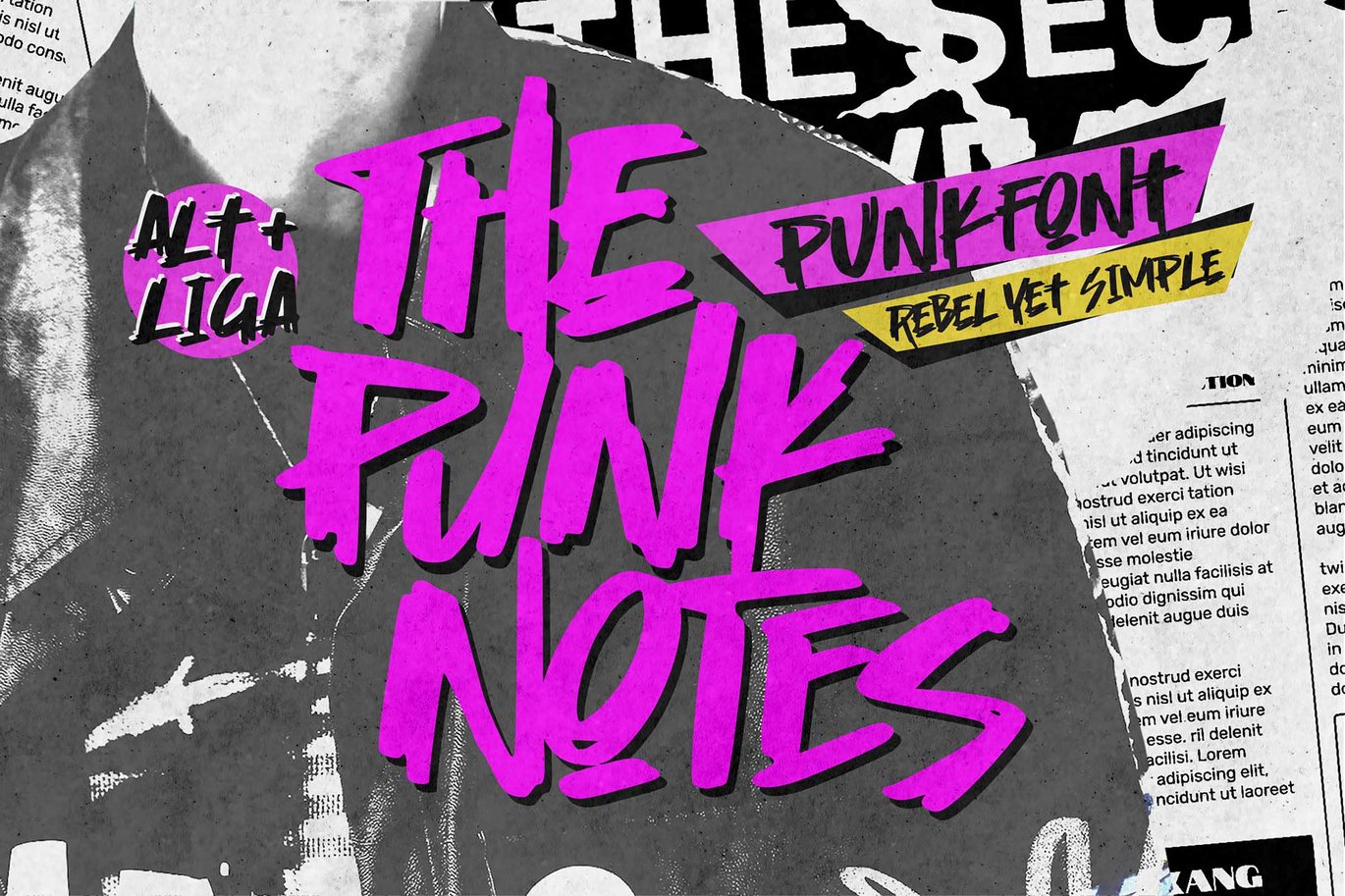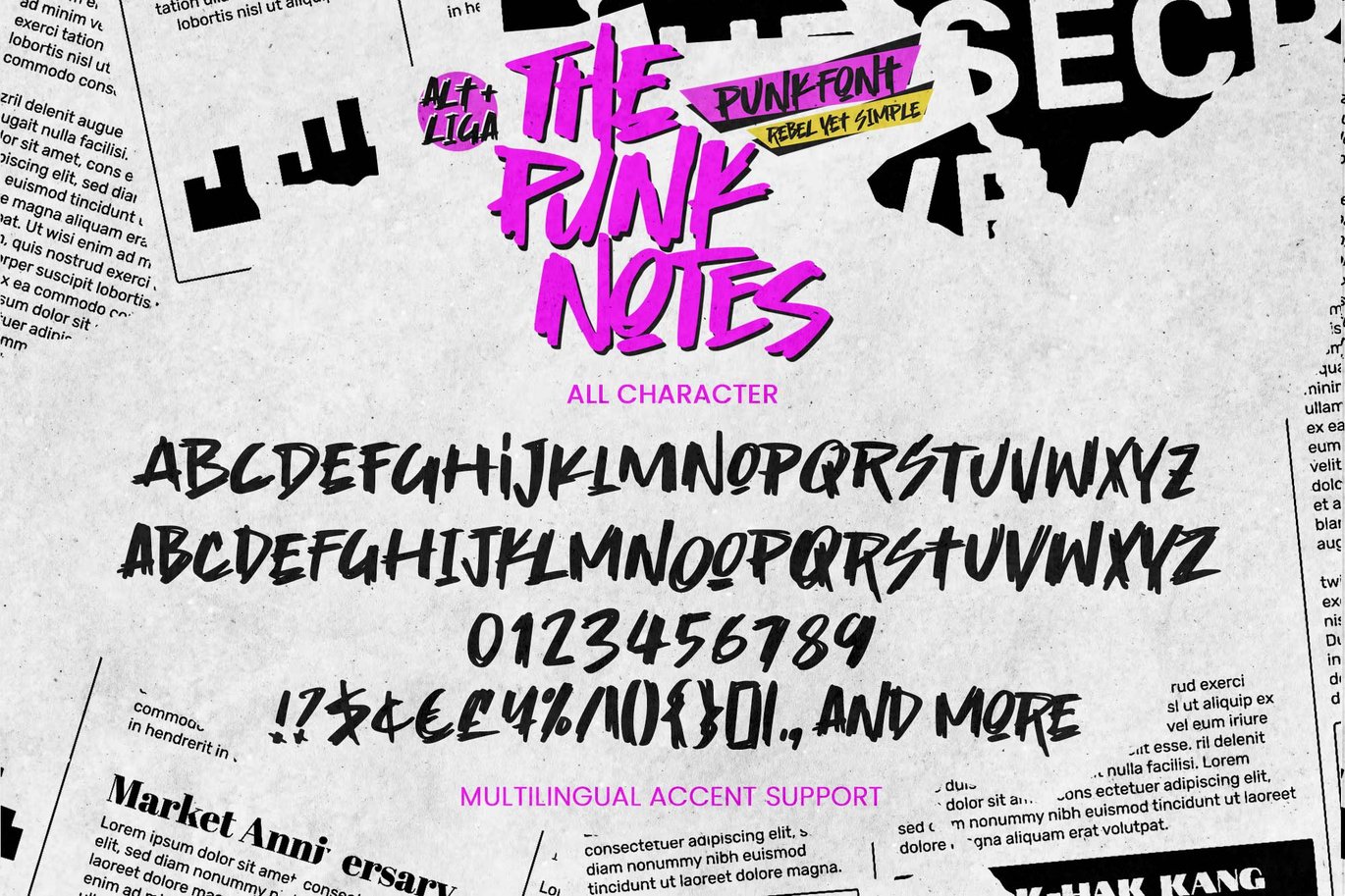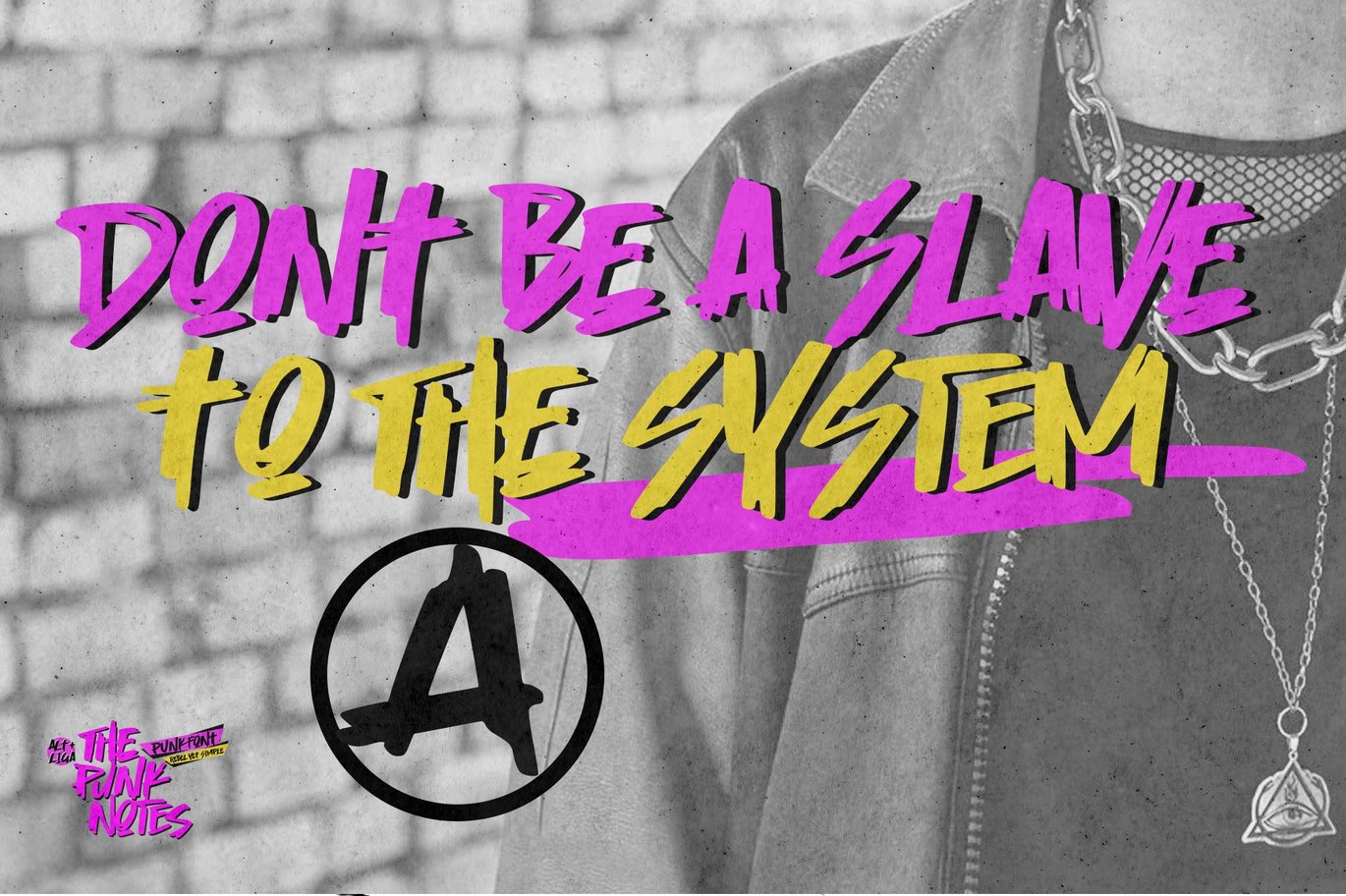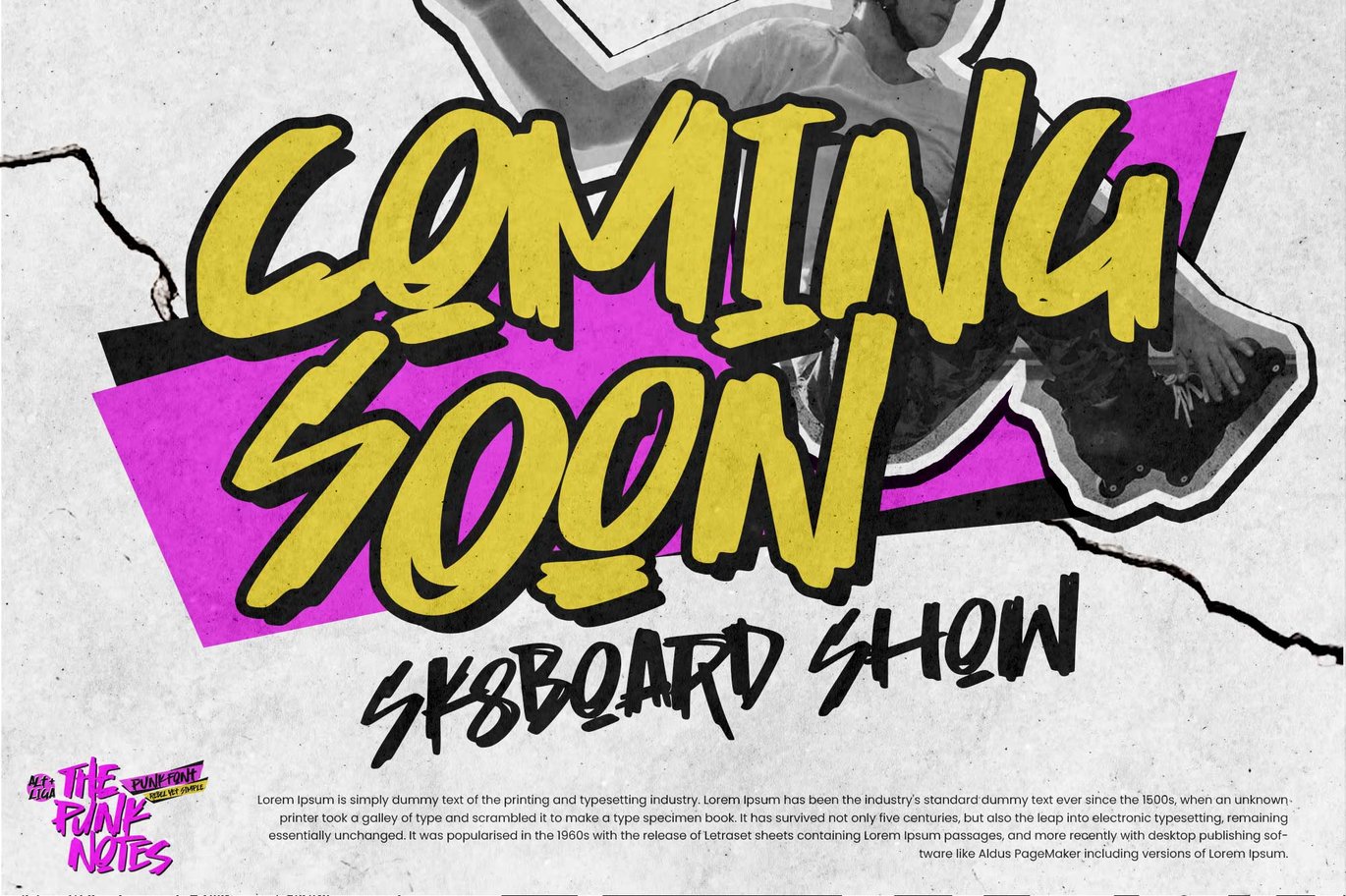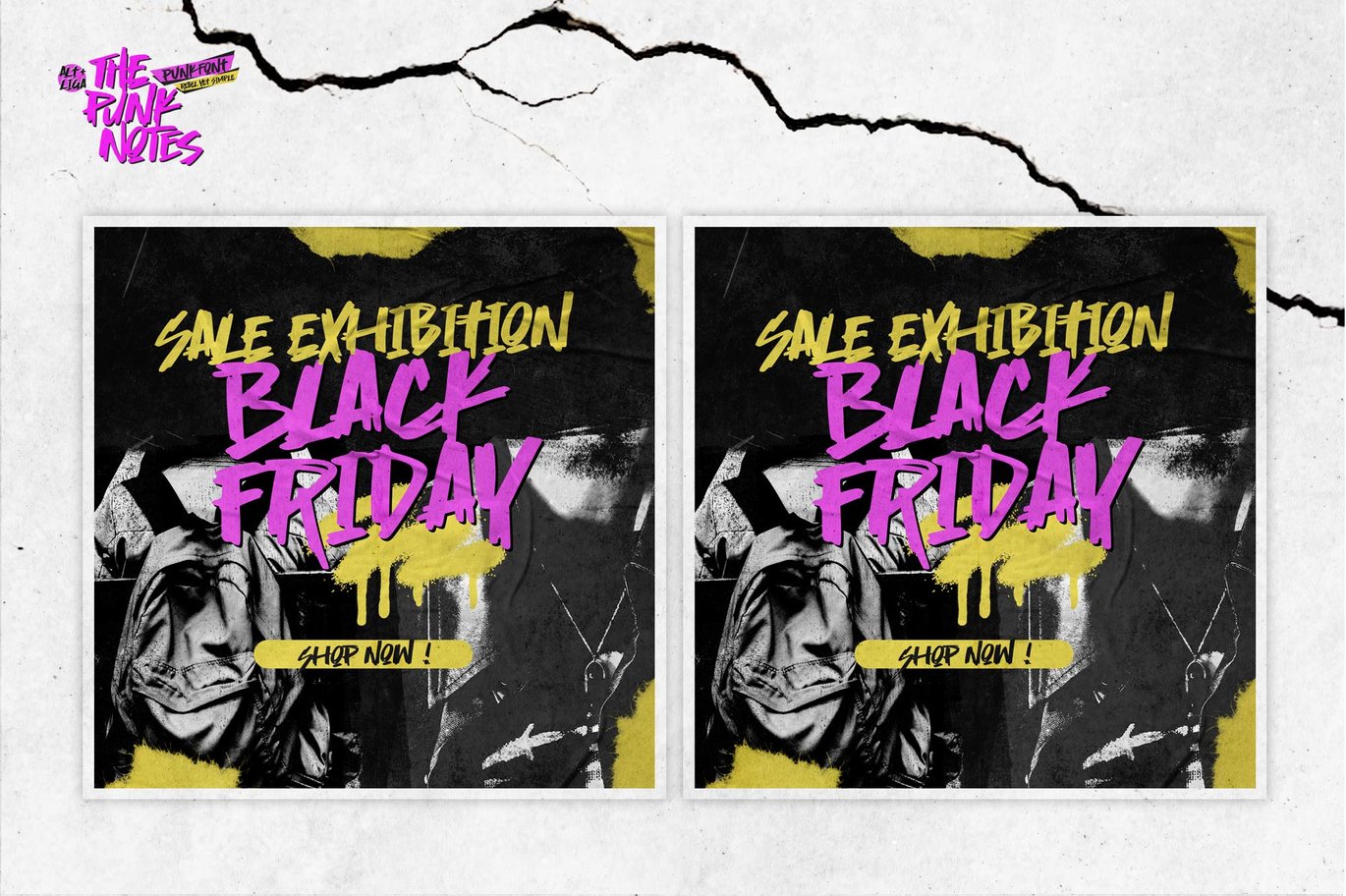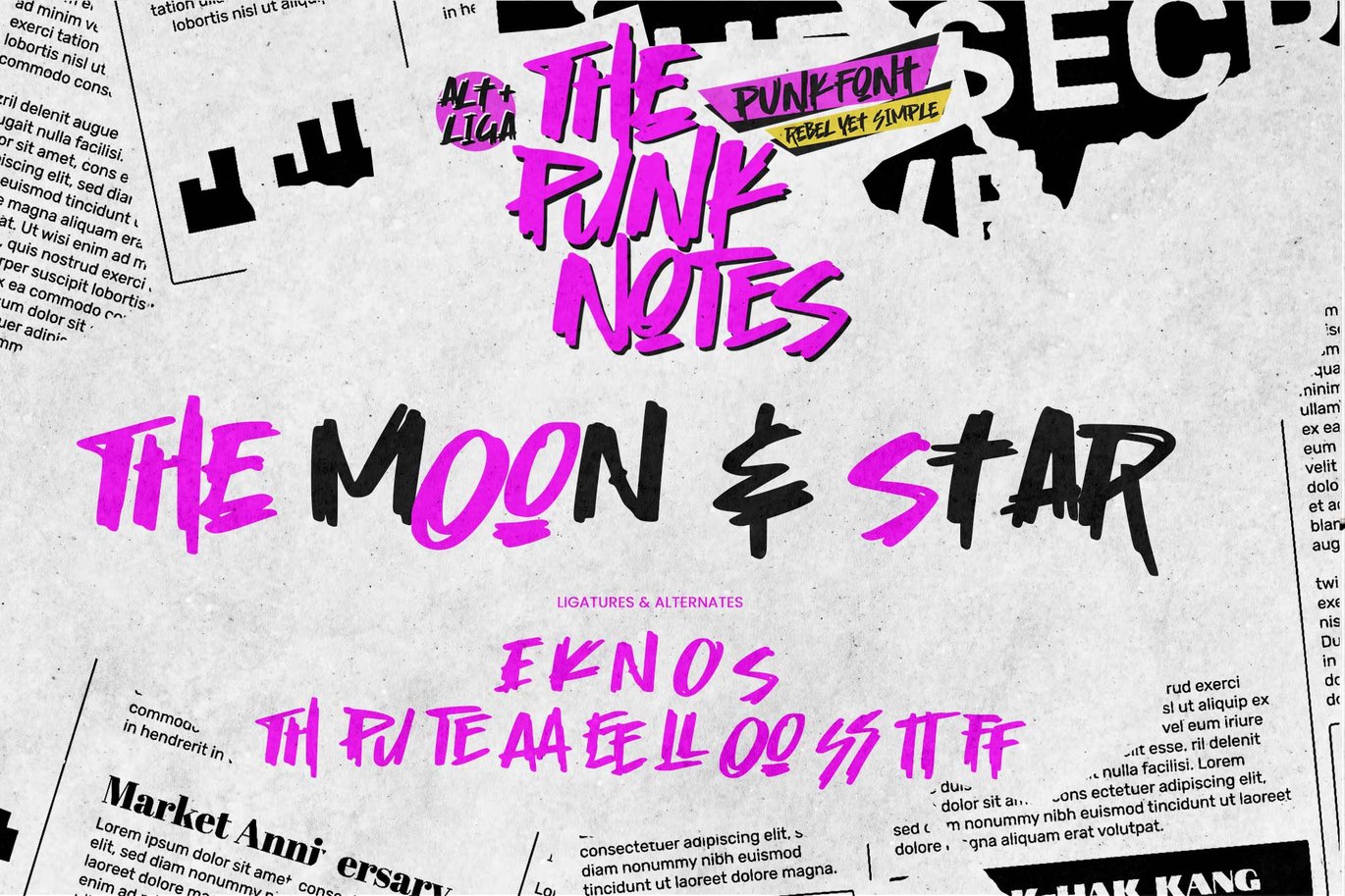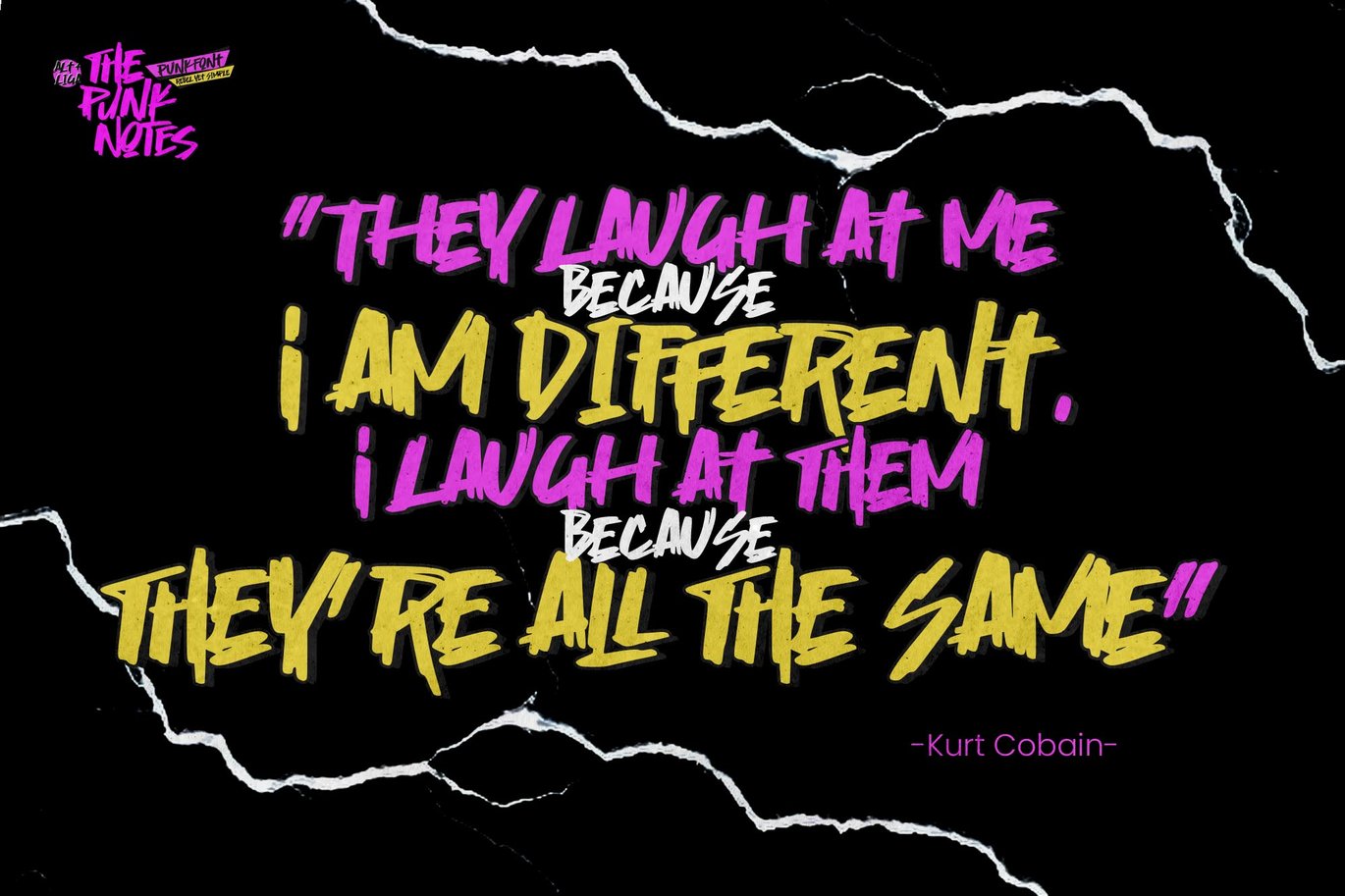
The Punk Notes – Punk Font Rebel Yet Simple
Hello Everyone, introduce our new product Font **The Punk Notes ** This Is Punk Font Rebel Yet Simple.This is a Textured Natural Style, Graffiti style and Grunge.
This font **The Punk Notes ** is great for your next creative project such as logos, printed quotes, invitations, cards, product packaging, headers, Logotype, Letterhead, Poster, Design this font is great for your creative projects such as watermark on photography, and perfect for logos & branding, invitation,advertisements,product designs, stationery, wedding designs,label ,product packaging, special events or anything that need handwritting taste.
That is has charming, authentic and relaxed characteristic more natural look to your text.
Fonts include multilingual support